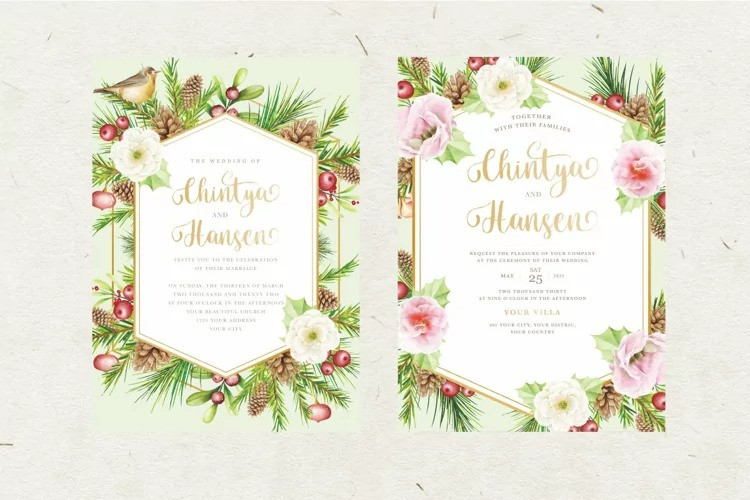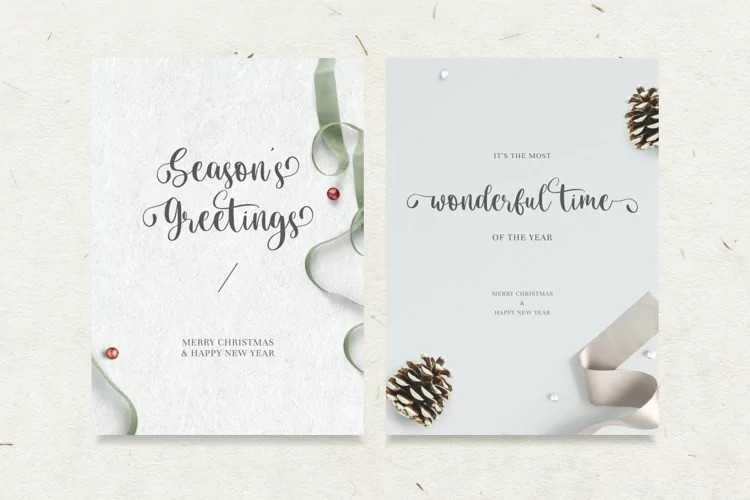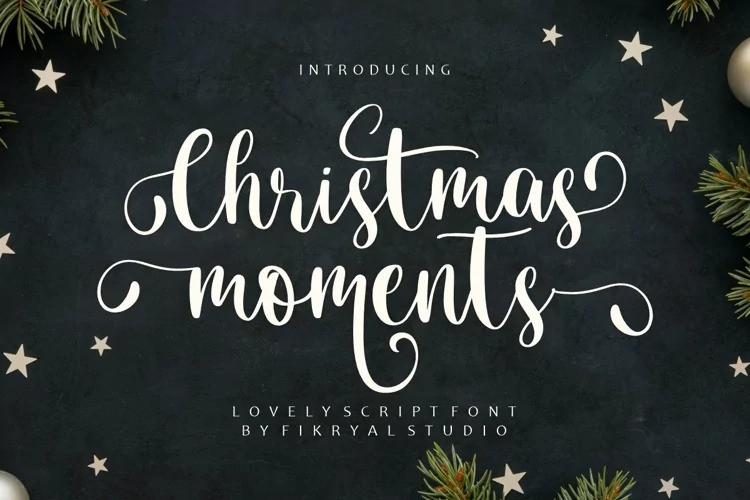
Christmas Moments Calligraphy Font
Christmas moments Font is a new stylish script font. It’s perfect for logo, branding, title, social media posts, advertisements, product packaging, product designs, label, photography, watermark, special event, magazine, web design, etc.